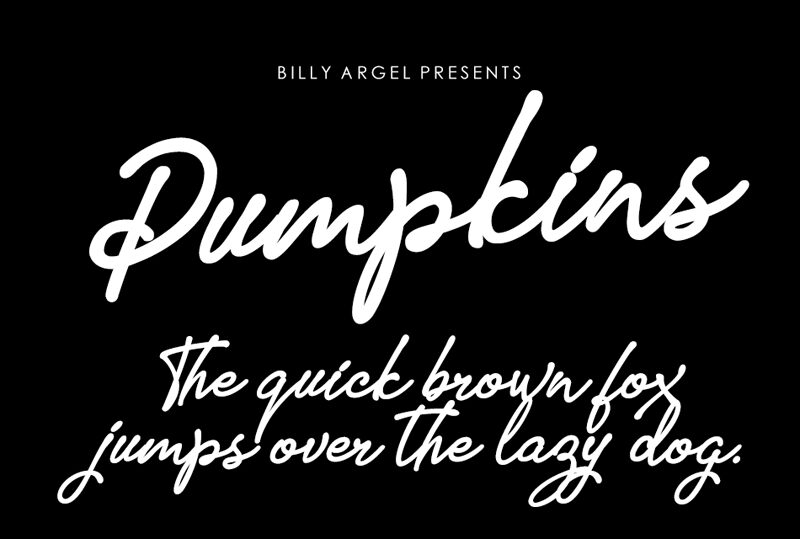
Pumpkins is a captivating handwritten font designed by Billy Argel. With its playful, organic strokes and undulating curves, this font evokes a delightful sense of whimsy and charm. The letters seamlessly blend together, creating a fluid, script-like appearance that adds a touch of personality to any design.
This font's versatility shines through, making it an excellent choice for a wide range of applications, from festive branding and holiday-themed projects to quirky packaging and playful marketing materials. Its inviting, hand-crafted aesthetic lends itself beautifully to creating a warm, approachable atmosphere, making it a standout option for projects seeking to convey a cheerful, heartfelt message.